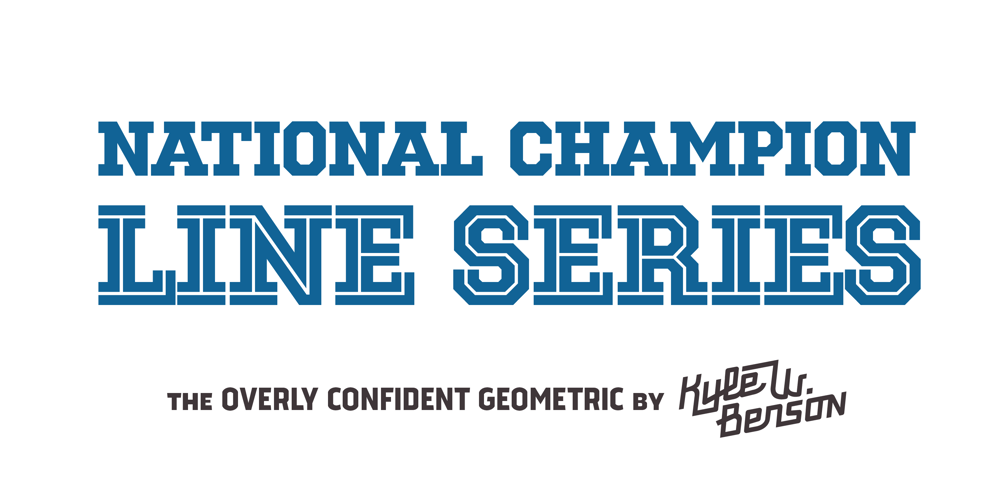
National Champion Line Series
National Champion Line Series font
National Champion Line Series Font Family was designed by Kyle Benson and published by Kyle Wayne Benson. National Champion Line Series contains 12 styles and family package options. National Champion is the overly confident geometric slab that comes in four weights and twelve line styles. He’s got a 3/4 cap lowercase, lots of language options, and opentype fractions!